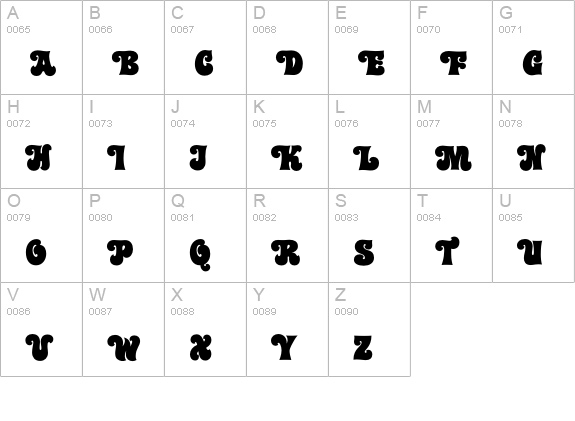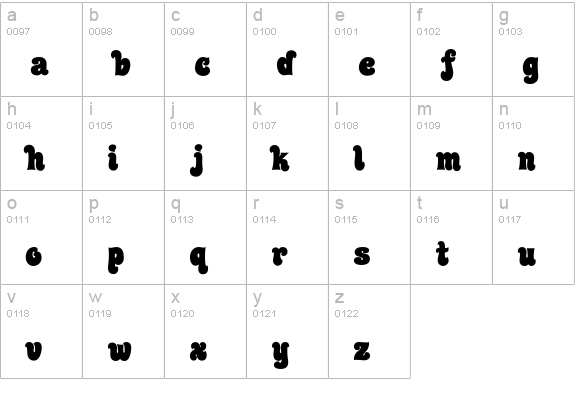
Swinger Font Details
Swinger font is a stylish and modern typeface that exudes a sense of playfulness and creativity. With its unique letterforms and elegant curves, this font is perfect for adding a touch of sophistication to any design project. The versatility of Swinger font allows it to be used for a wide range of purposes, from branding to editorial design. One of the best things about Swinger font is that it is completely free to download. You can easily access this beautiful typeface at FontsMarket.com, where you can explore its full potential and incorporate it into your creative projects without any cost. Don't miss out on the opportunity to enhance your designs with the charm and elegance of Swinger font, available for free download now.